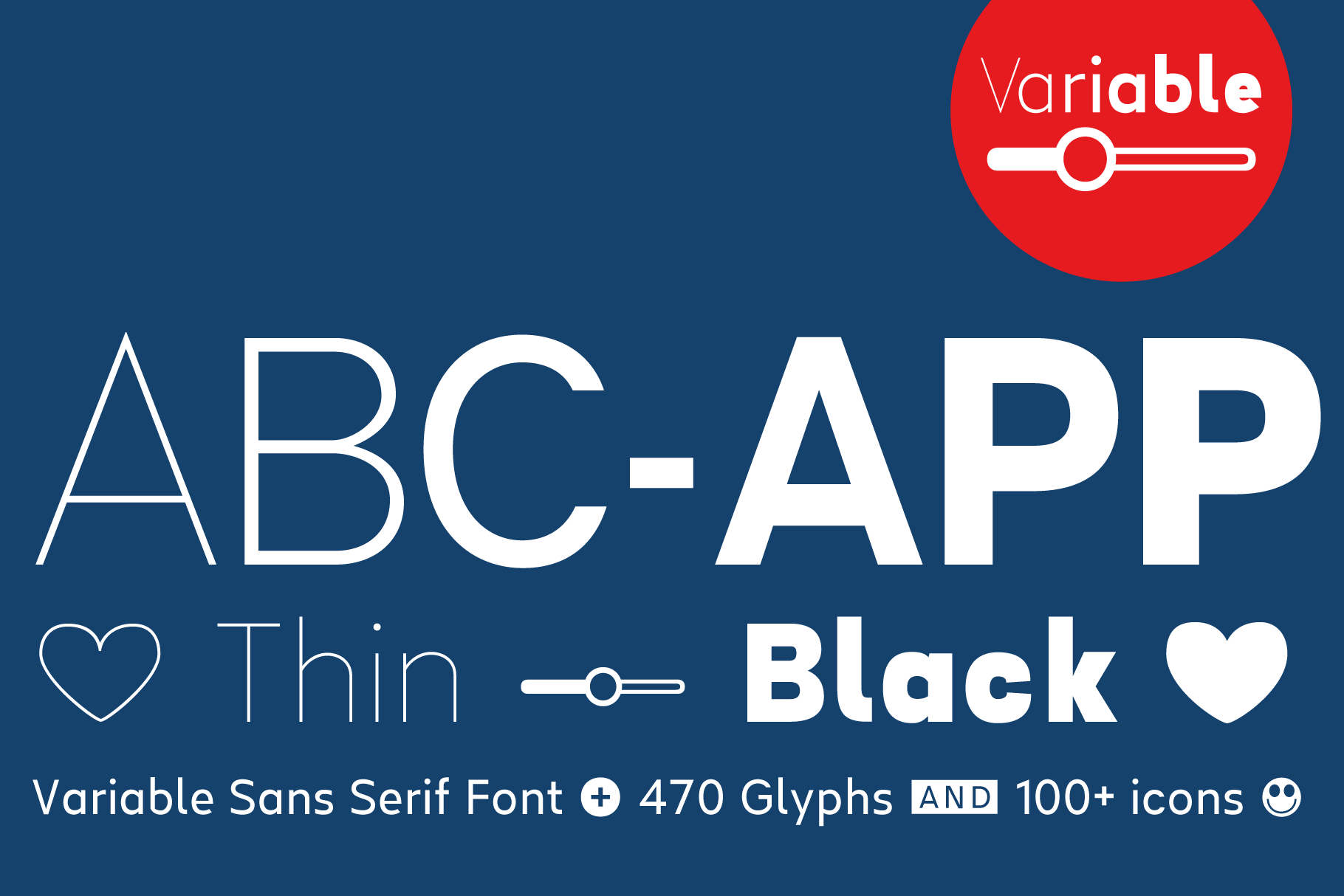
FONT | Linear Beta | App Font
The variable Sans Serif typeface Linear Beta is designed from 2022–2024 for the font foundry Typo Graphic Design by Manuel Viergutz based on a font by Jens Kreitmeyer for an alphabetization app.
9 font-styles (Black, UltraBold, Bold, SemiBold, Medium, Regular, Light, ExtraLight, Thin ) with 500+ glyphs (Adobe Latin 2) incl. 100+ decorative extras like icons, arrows, catch words, dingbats, emojis, symbols, geometric shapes (type the word #LOVE for ❤ or #SMILE for ☺ as OpenType-Feature dlig) and stylistic alternates (4 stylistic sets).
For use in logos, magazines, posters, advertisement plus as webfont for decorative headlines. The font works best for display size.